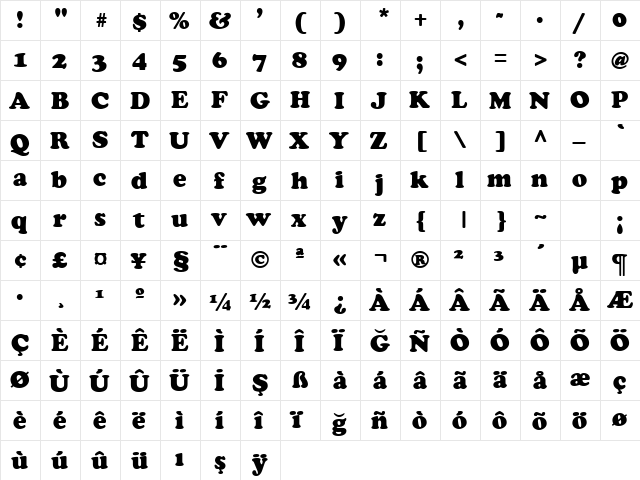
TR Cupertino Plain
Design Context for TR Cupertino Typeface
TR Cupertino offers clean, dependable letterforms without strong stylistic allegiance, making it a practical choice for designers who need flexibility.
Pro Tip: Pair TR Cupertino with a font of contrasting weight or personality to build a more expressive typographic hierarchy.